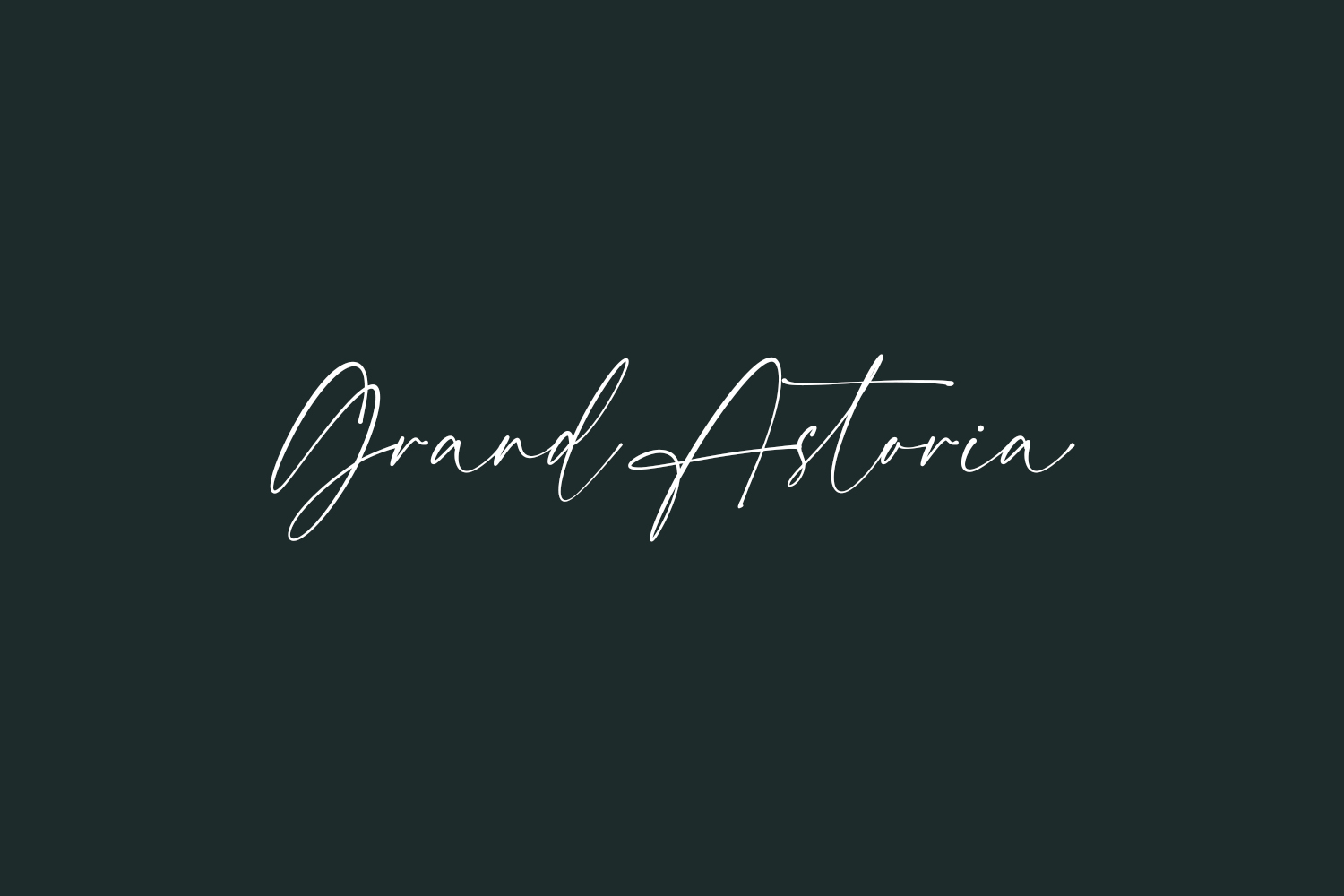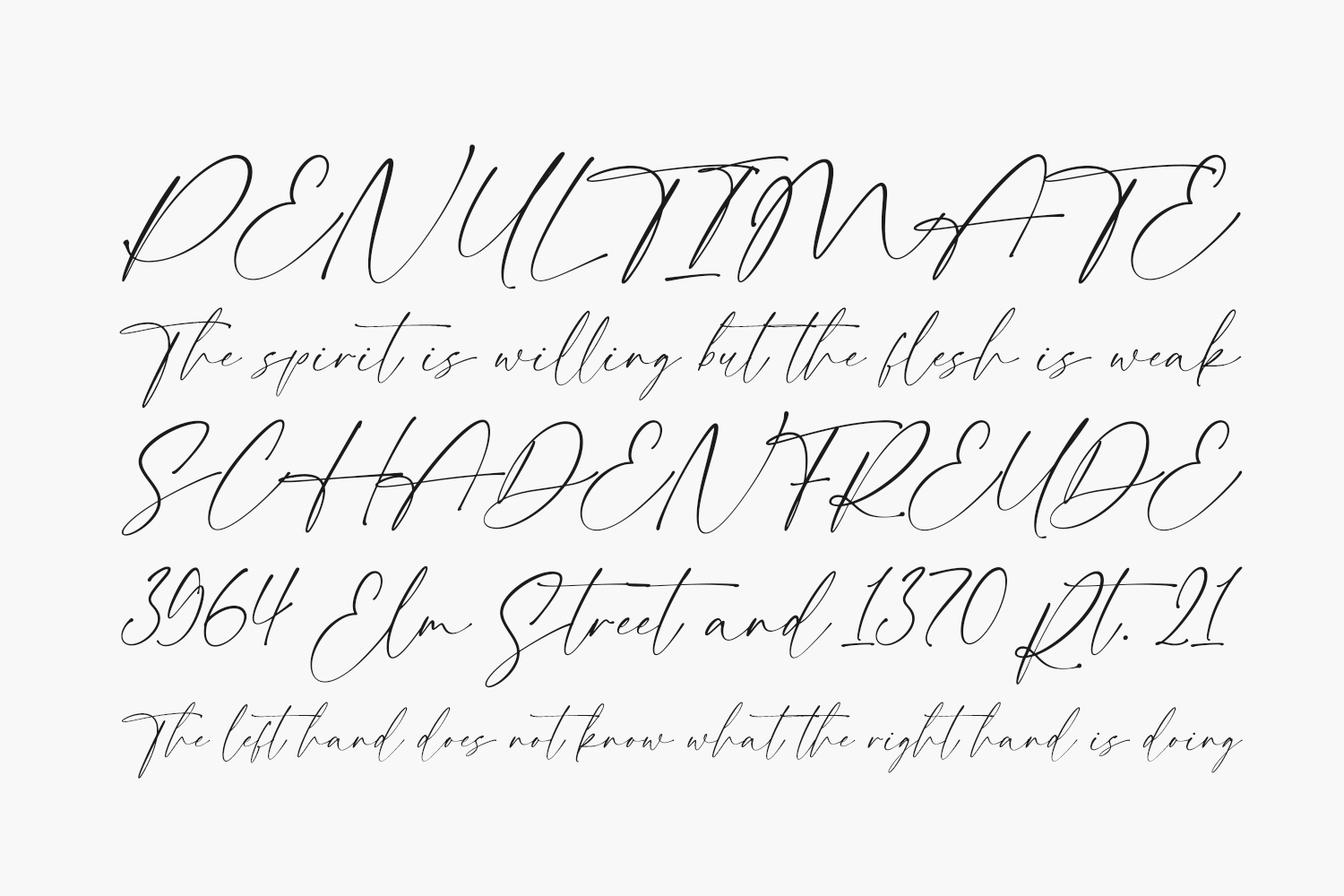
Grand Astoria – Free Vintage Display Font for Retro Designs
Grand Astoria is a bold vintage display font that captures the essence of classic Americana and retro typography. With its high-contrast letterforms, distinctive serifs, and art-deco influences, this free display font is perfect for creating eye-catching brand identities, nostalgic packaging, movie titles, and vintage-inspired advertising. Available in TTF format with full Latin character support, Grand Astoria offers designers a free commercial-use typeface for projects requiring a touch of 1920s glamour or 1950s diner aesthetic.
Why Choose Grand Astoria?
- Retro Charm: Authentic vintage aesthetic with art-deco details and bold proportions
- Versatile Impact: Works equally well for both digital and print applications
- Optimized Legibility: Carefully designed for maximum readability at various sizes
Where to Use Grand Astoria?
This versatile retro font excels in numerous design contexts:
- Vintage Branding: Perfect for logos, labels, and packaging for craft beers, barbershops, or retro cafes
- Event Promotion: Ideal for music festival posters, theater announcements, and carnival signage
- Editorial Design: Makes bold statements in magazine headlines and book covers about history or pop culture
- Product Packaging: Elevates designs for artisanal goods, vinyl records, or specialty foods
- Digital Media: Creates striking titles for YouTube channels, podcasts, and streaming content
Design Tips with Grand Astoria
- Glyphs: Uppercase (A-Z), Numbers (0-9), Basic Punctuation.